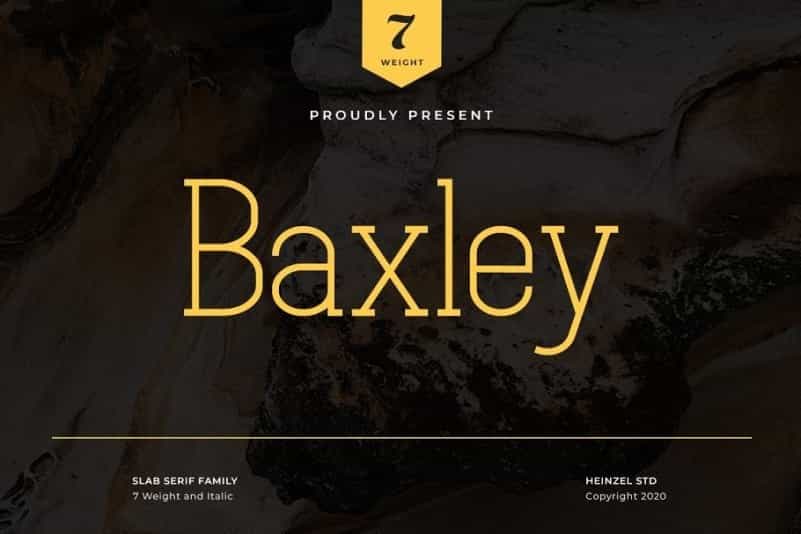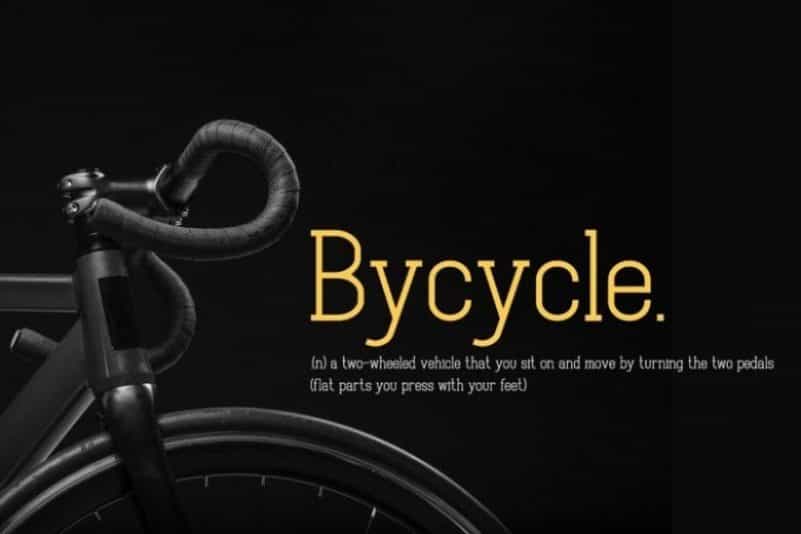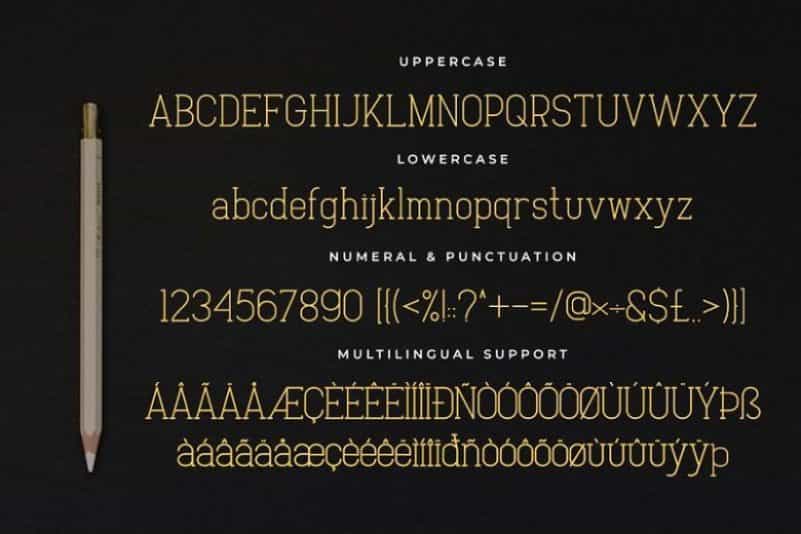
It has seven weights that are bold and lively and comes with true italics, and a support for multiple languages; Baxley is great for branding purposes, logos, headings, and sub headings. The various weights allow for flexibility in that you could go out to any number of locales ranging from tech firms to local events and even sports. Every aspect of the selection is now in your control.